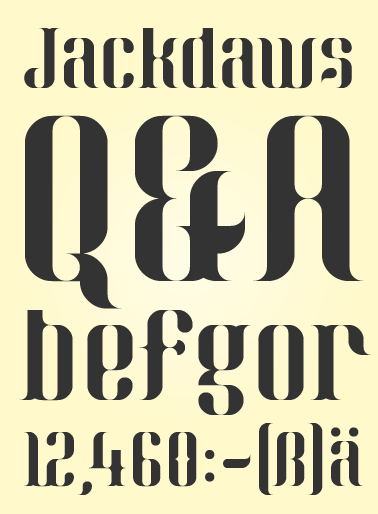
• Based on letters I saw in some fashion magazine many years ago. I found an old note with my hand-drawn sketches of it the other day, and realized it would be perfect for FontStruct. Based on a simple 3x6 grid and very few brick-shapes. Kind of organic and playful letters anyway..
Love s, g, &. Stunning.
i like it. it reminds me of old ads in fashion magazines :)